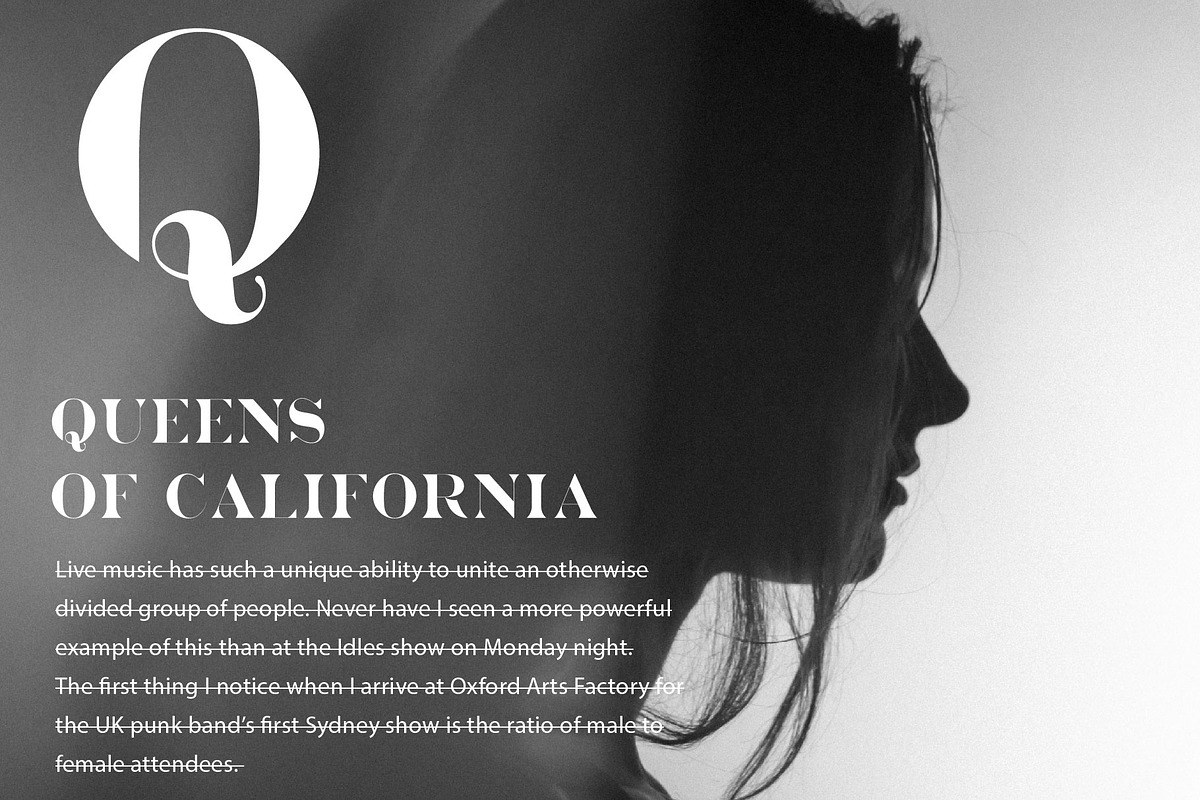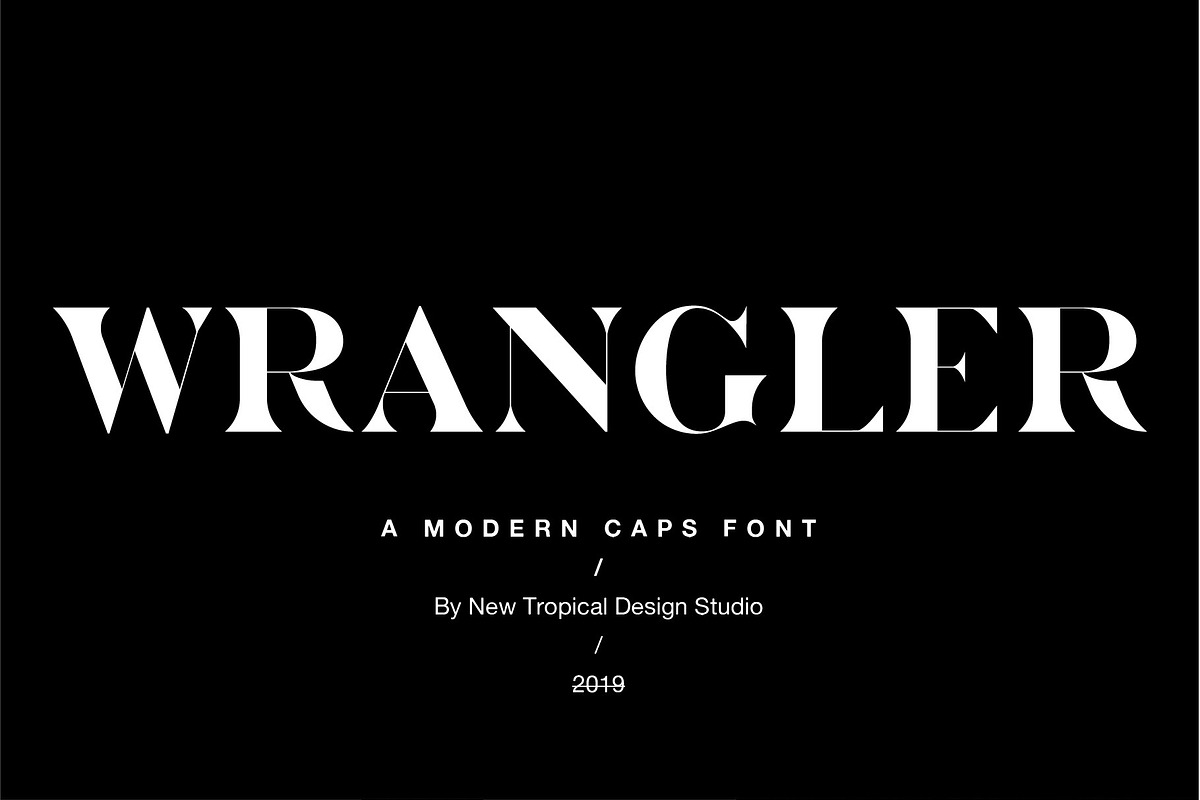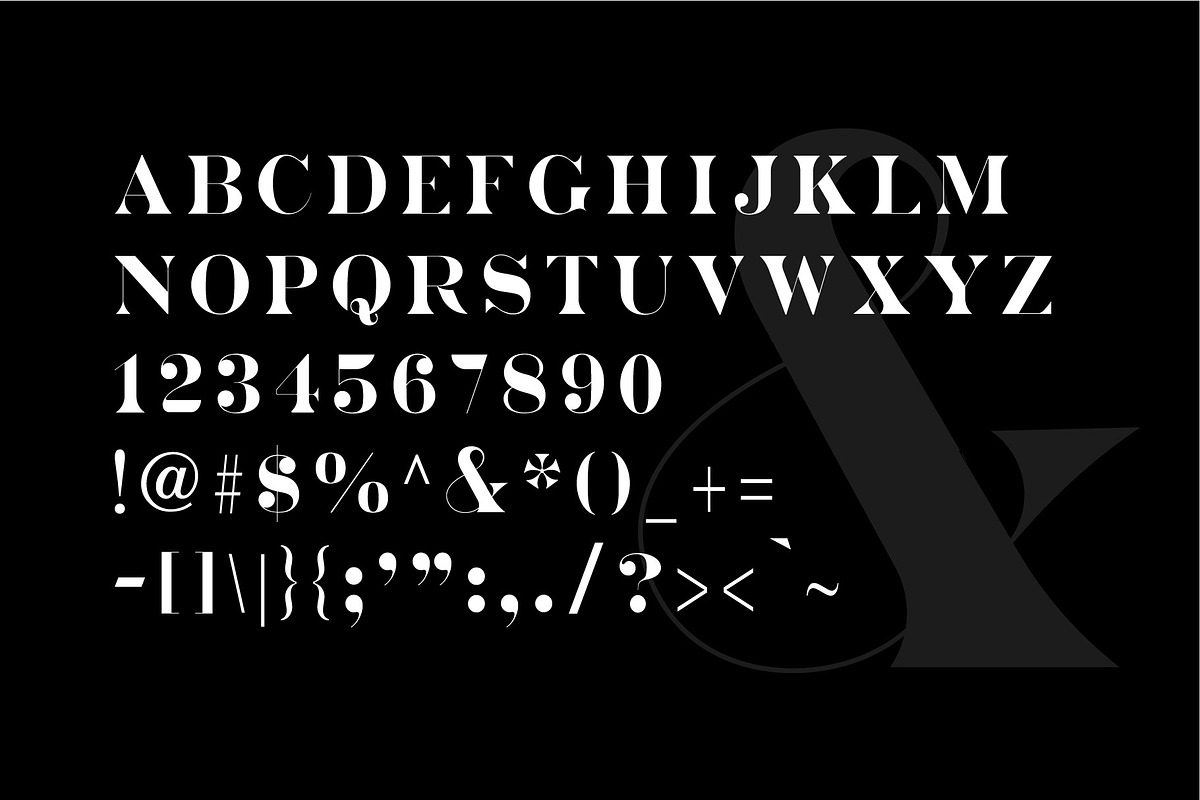
Wrangler - Modern Fashion Caps Font
Wrangler is a bold yet elegant, sans serif caps font. Great for word-mark logos or fashion mastheads. Wrangler is both feminine and masculine with sharp angles and soft curves. It's a versatile typeface that's full of sleek curves and one you'll use to time and again.
With numbers and punctuation
Great for monograms or word-mark logos
Great for pull quotes and mastheads